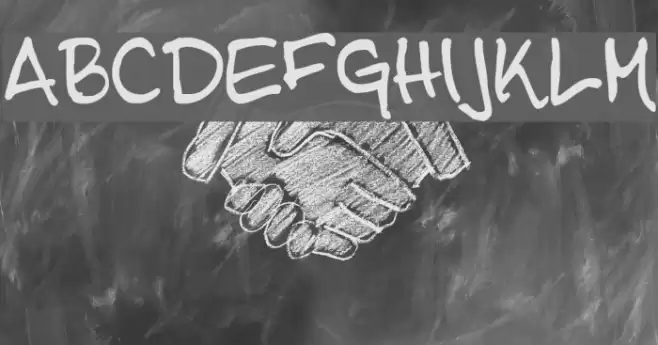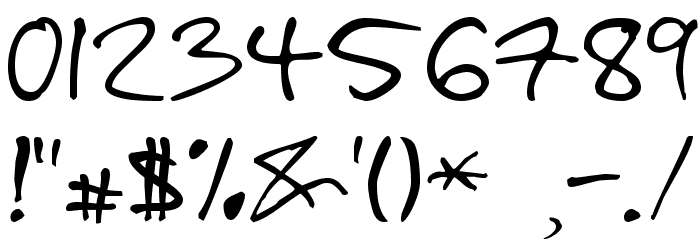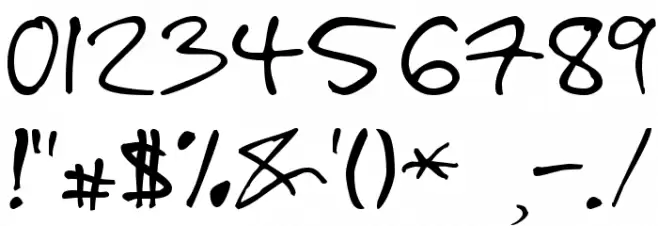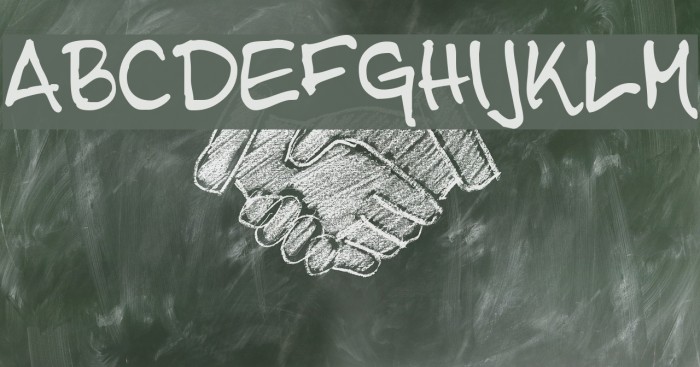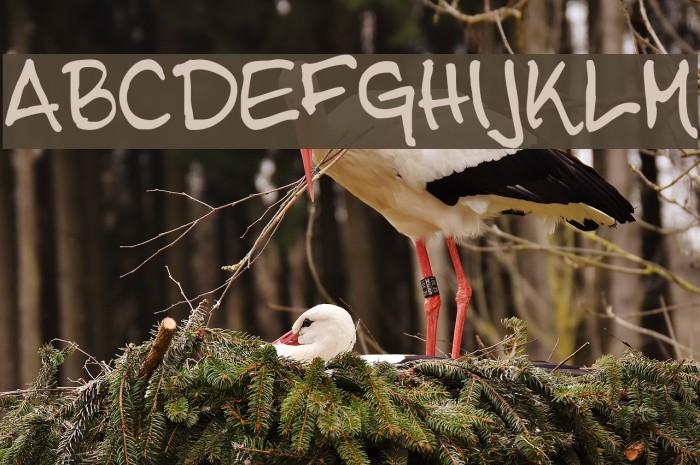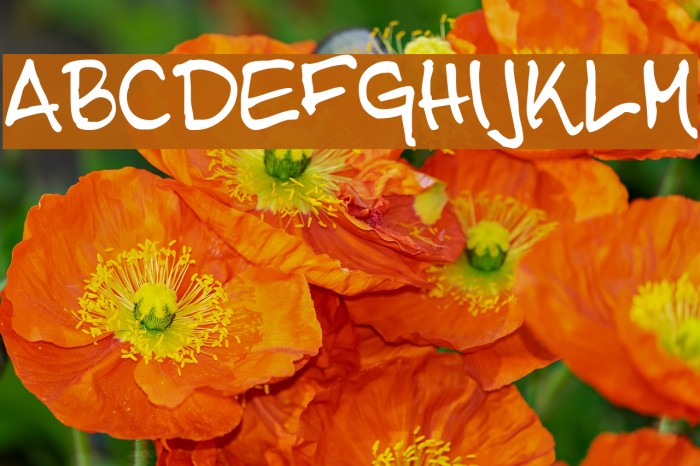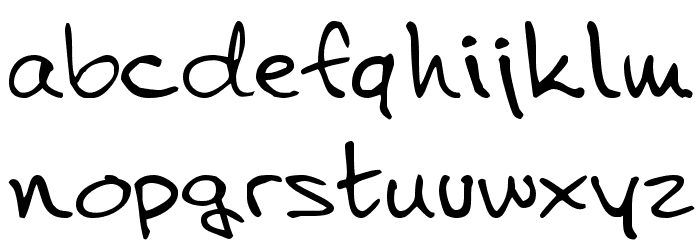
Tena Font
Tena Description
This font exhibits a playful and informal handwritten style, characterized by its bold and slightly irregular strokes. The letters have a casual, free-flowing appearance, with varying stroke thickness that adds a dynamic and energetic feel. The uppercase and lowercase letters maintain a consistent style, while the numerals and special characters complement the overall aesthetic. The font's organic and spontaneous look makes it suitable for projects that aim to convey a sense of creativity and approachability.
A playful, bold handwritten font with a casual and dynamic style from Handwritten fonts.
- Proposed Projects: Ideal for greeting cards, children's books, casual branding, and creative posters.
- Overall Style: Playful, Informal
- Use Case: Headlines, Logos, Informal Text